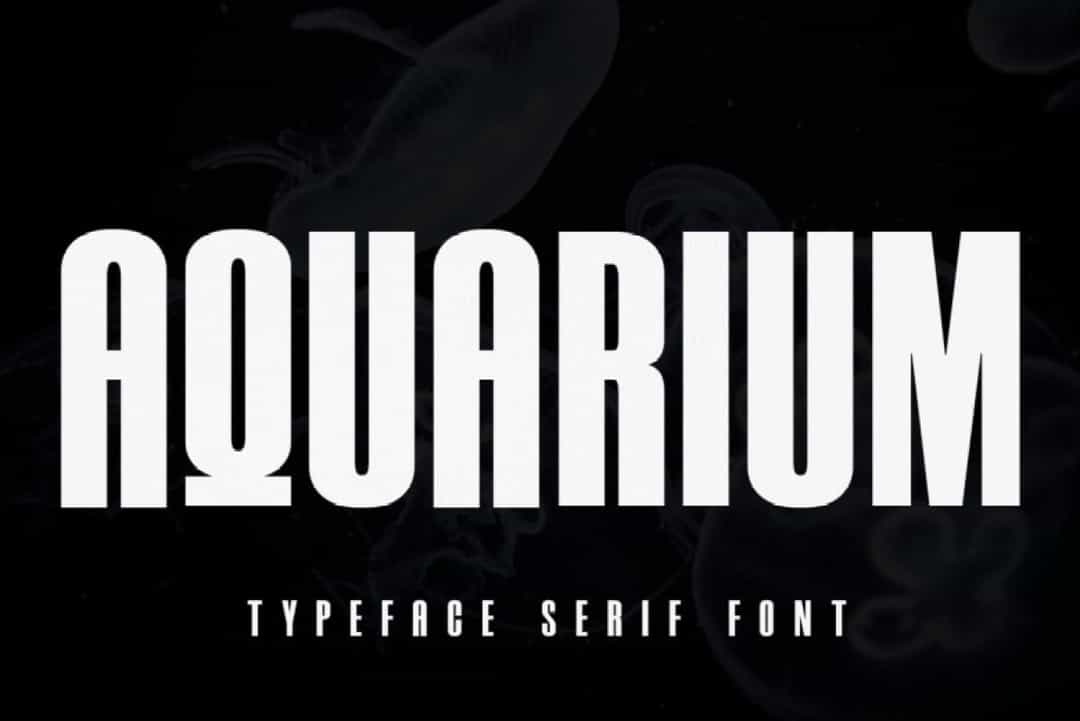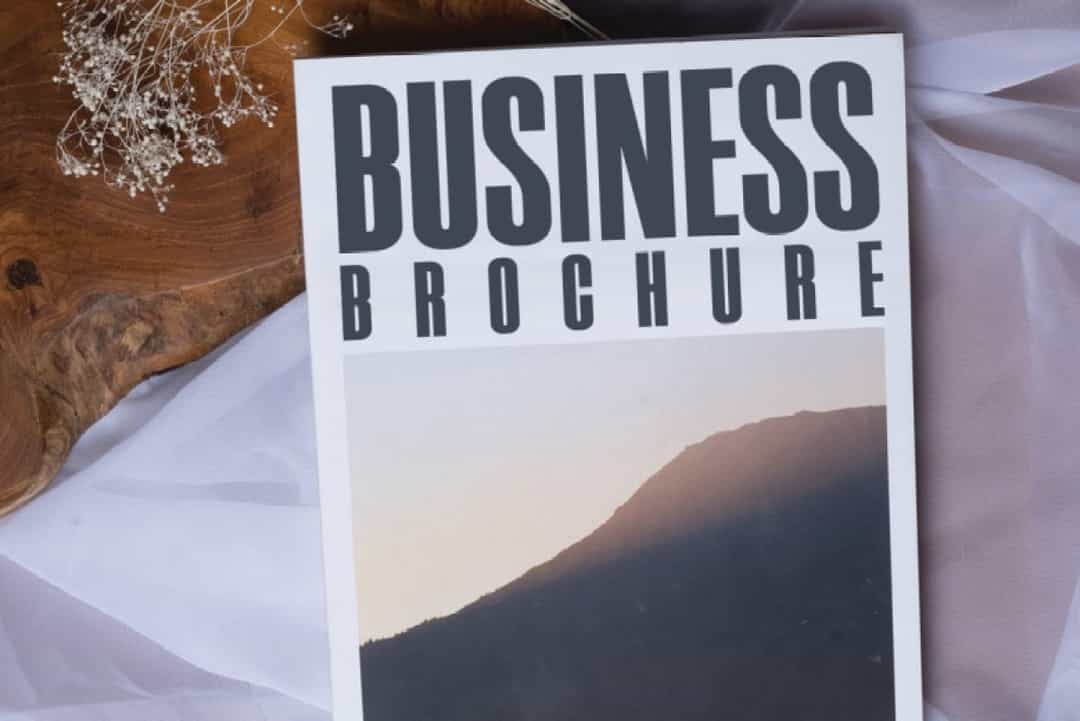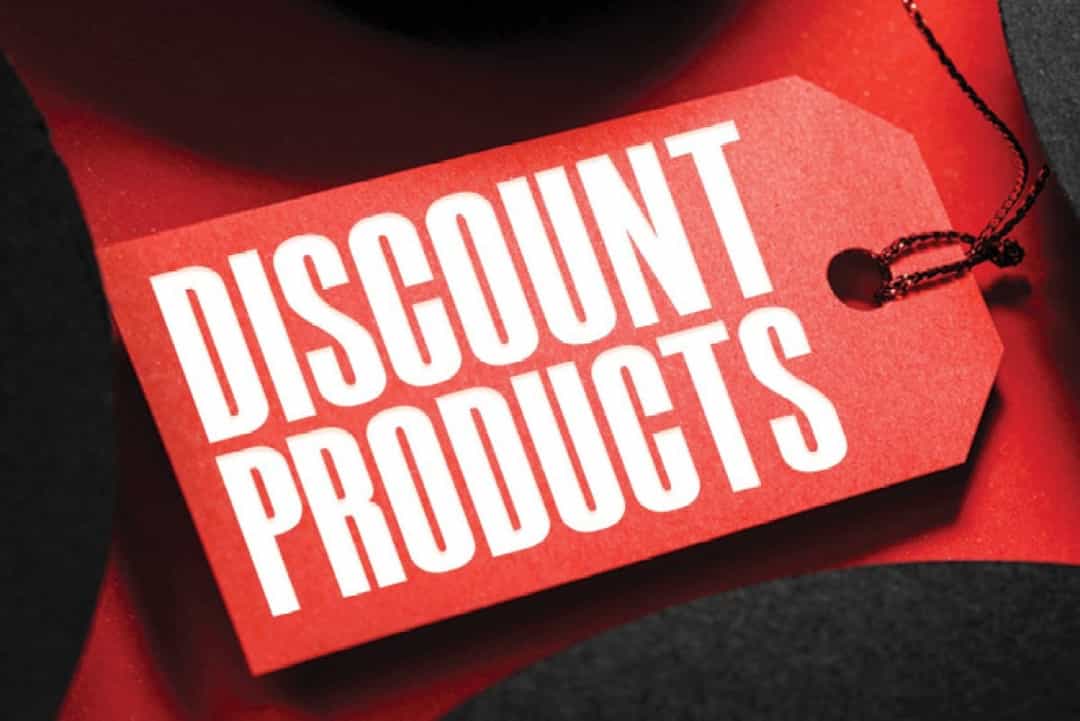
Discover Aquarium Sans Serif Typeface, part of the Sans Serif Display Basic collection—a versatile and unique font perfect for adding a personal touch to your projects. Download it for free and enjoy crafting designs with style, from invitations to social media posts. This font is available exclusively for personal use, giving you the freedom to create without limits. Unlock your creativity with Aquarium Sans Serif Typeface today!
Aquarium Font gives you the genuine and distinctive nature of products. With the styles that are available here, you will be guaranteed of having a good time using them, and they are suitable to be used in wall display wedding invitations, social media post logos, advertising packaging of products, designs for labels, photography invitations, watermarks, stationery projects, among other projects.